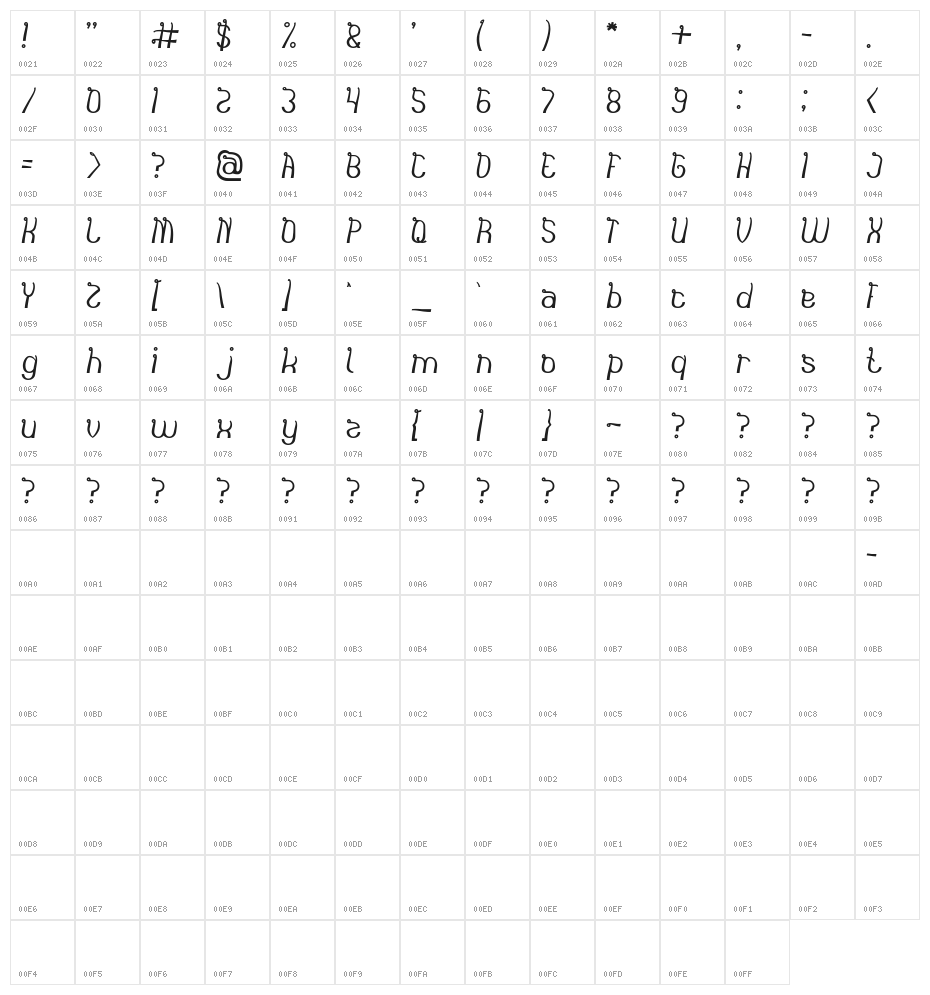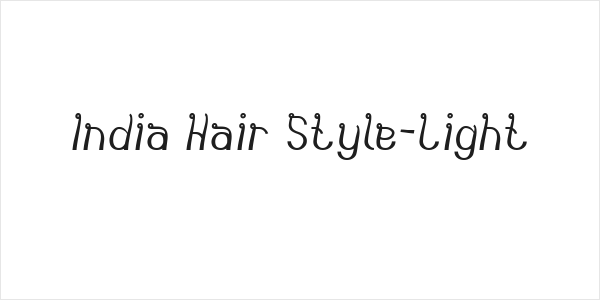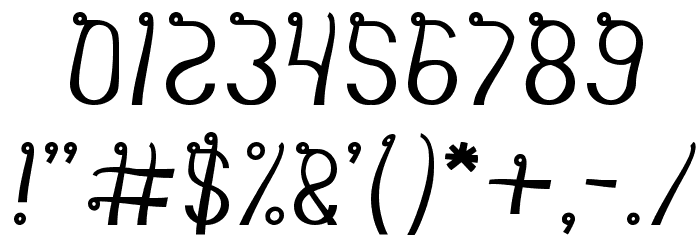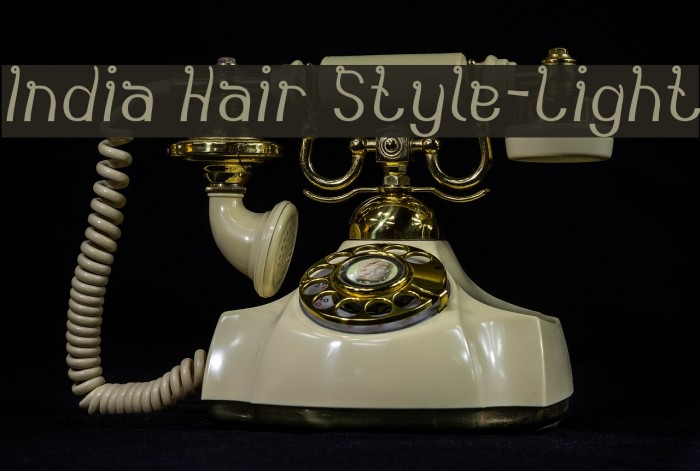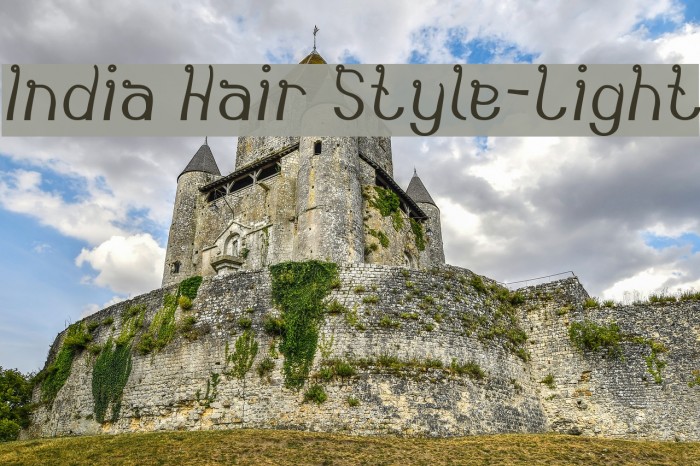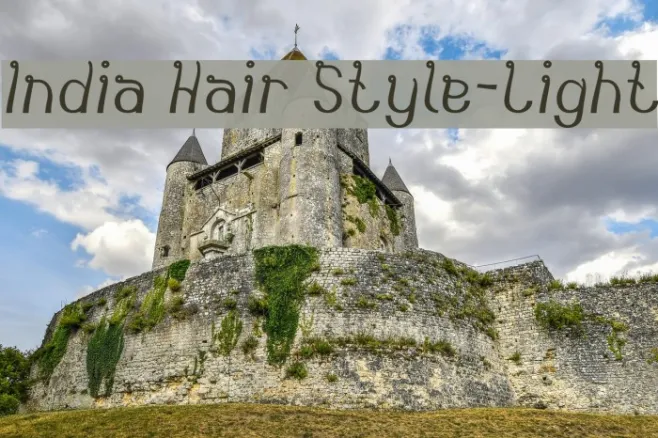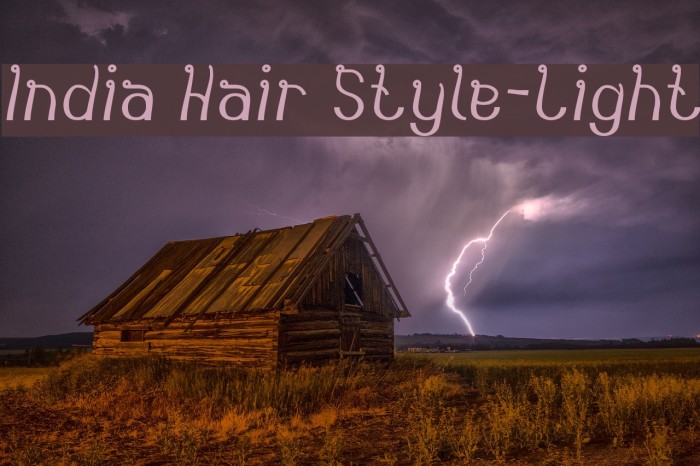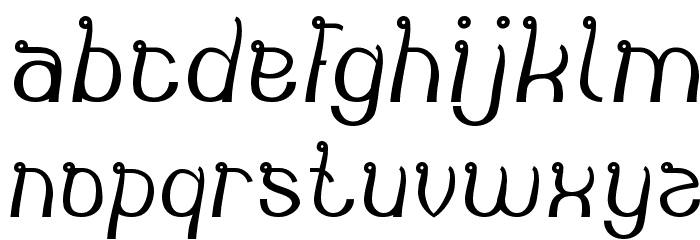
India Hair Style-Light Font
India Hair Style-Light Description
This font features a unique and playful design with a whimsical flair. Each character is adorned with small, rounded terminals that add a distinctive touch to the overall appearance. The strokes are consistent in width, giving it a uniform look, while the rounded ends provide a soft and friendly feel. The font maintains a balance between readability and decorative elements, making it suitable for creative projects. Its quirky style is ideal for capturing attention and adding a fun element to any design.